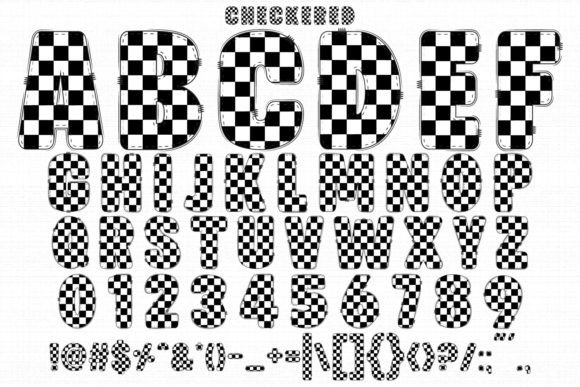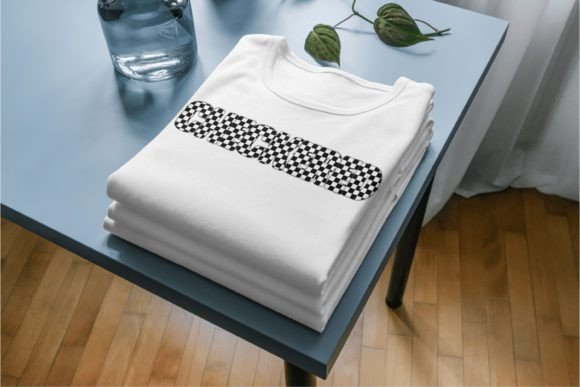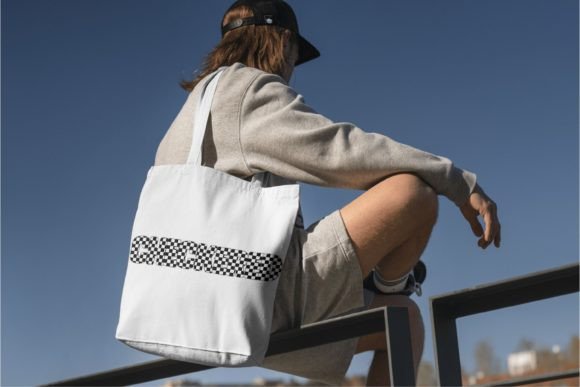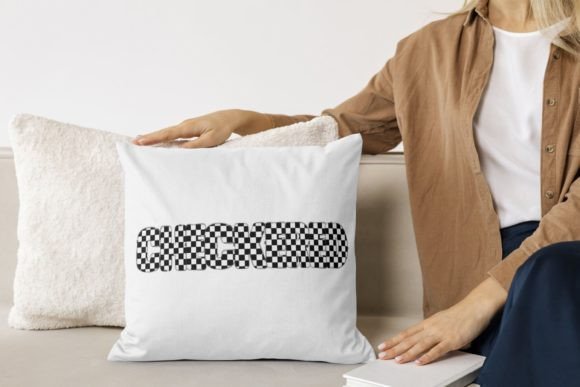
Introducing Checkered Font: Elevate Your Designs with a Unique Touch
Are you looking for a font that can add a playful and creative twist to your designs? Look no further than the Checkered Font, a decorative font that features a distinctive checkered skin texture. This font is perfect for nature-themed designs, children’s projects, and a wide range of other creative endeavors. In this article, we’ll explore the features and benefits of the Checkered Font, and how it can become an invaluable asset to your font library.
A Font that Stands Out
The Checkered Font is a one-of-a-kind decorative font that is sure to grab attention. Its unique checkered skin texture gives it a playful and eye-catching appearance that is perfect for designs that require a bit of whimsy. Whether you’re working on a project for kids or creating a nature-themed design, this font is sure to add a touch of personality and charm.
Versatility at its Best
One of the best things about the Checkered Font is its versatility. It can be used for a wide range of design projects, from children’s books and educational materials to craft projects and DIY tutorials. The font’s playful and creative vibe makes it perfect for any project that requires a bit of fun and personality.
Tips for Using the Checkered Font
To get the most out of the Checkered Font, here are a few tips to keep in mind:
- Use the font for headings and titles to add a pop of personality to your designs.
- Experiment with different colors and textures to give the font a unique look.
- Pair the font with other playful fonts to create a fun and creative design.
- Use the font for children’s projects, such as books, posters, and educational materials.
The Checkered Font is an excellent addition to any font library. Its unique checkered skin texture and playful vibe make it perfect for a wide range of design projects. Whether you’re a designer, crafter, or DIY enthusiast, this font is sure to become a favorite. With its compatibility with cutting machines and design software, you can use the Checkered Font to create a wide range of projects, from custom vinyl decals to children’s books. So why wait? Download the Checkered Font today and start elevating your designs with a unique touch!
- What is the Checkered Font?
- The Checkered Font is a decorative font that features a distinctive checkered skin texture.